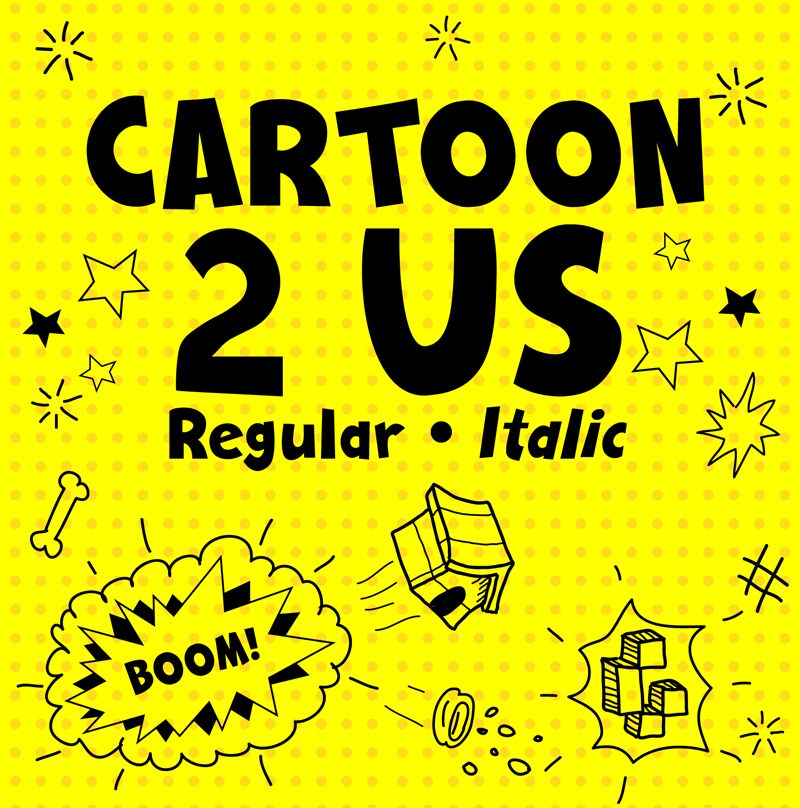
Cartoon 2 US font by Galdino Otten Fonts is a display typeface that immediately catches the eye with its exaggerated curves and bold appearance. Its cartoonish and playful style conveys a whimsical and friendly feel, making it perfect for those youthful, casual projects looking to stand out.
This free playful typeface can be used in so many places where friendly designs are required. It is suitable for comic book texts, cartoons, advertising posters, movie or event posters (especially movies for children), magazines, and books.